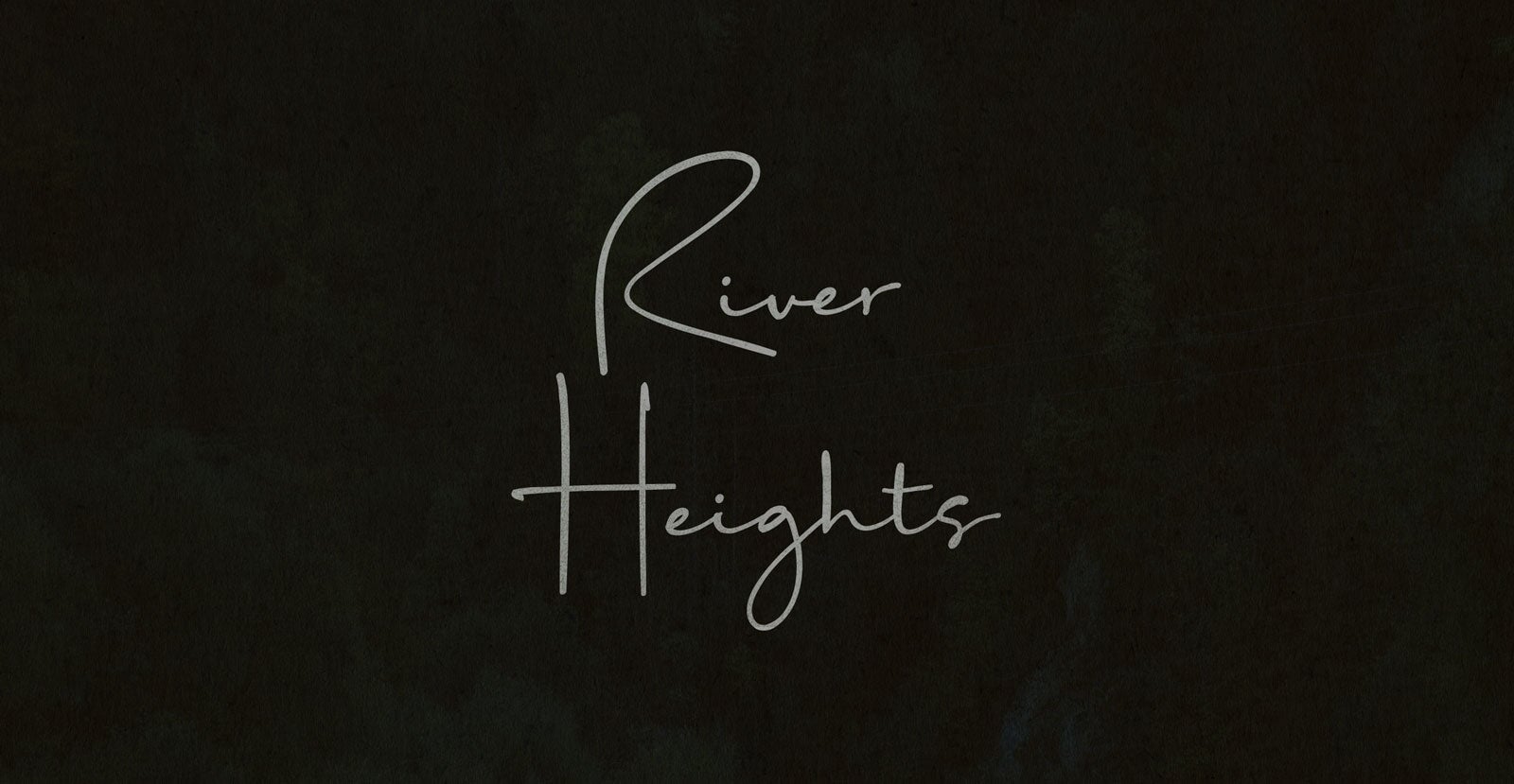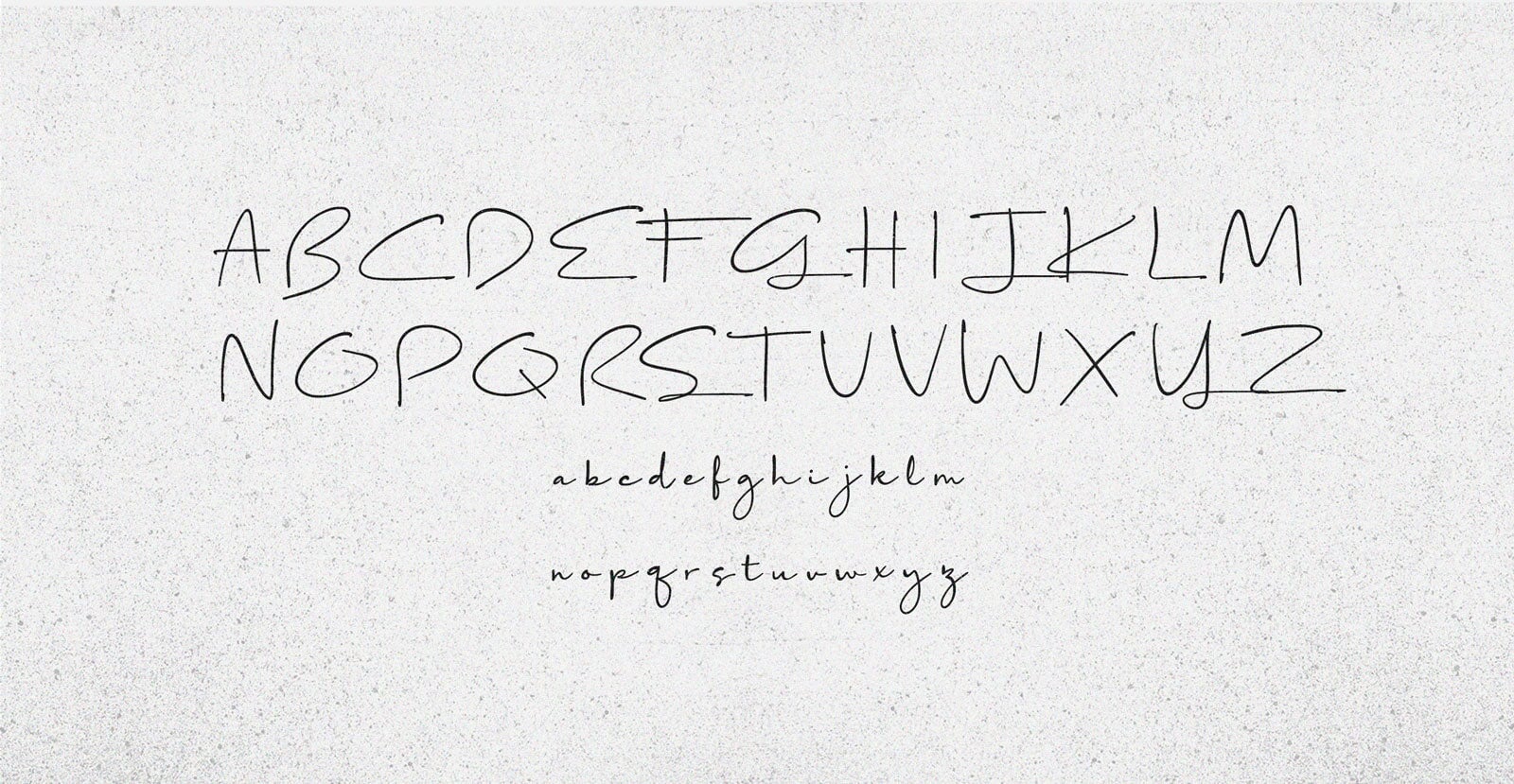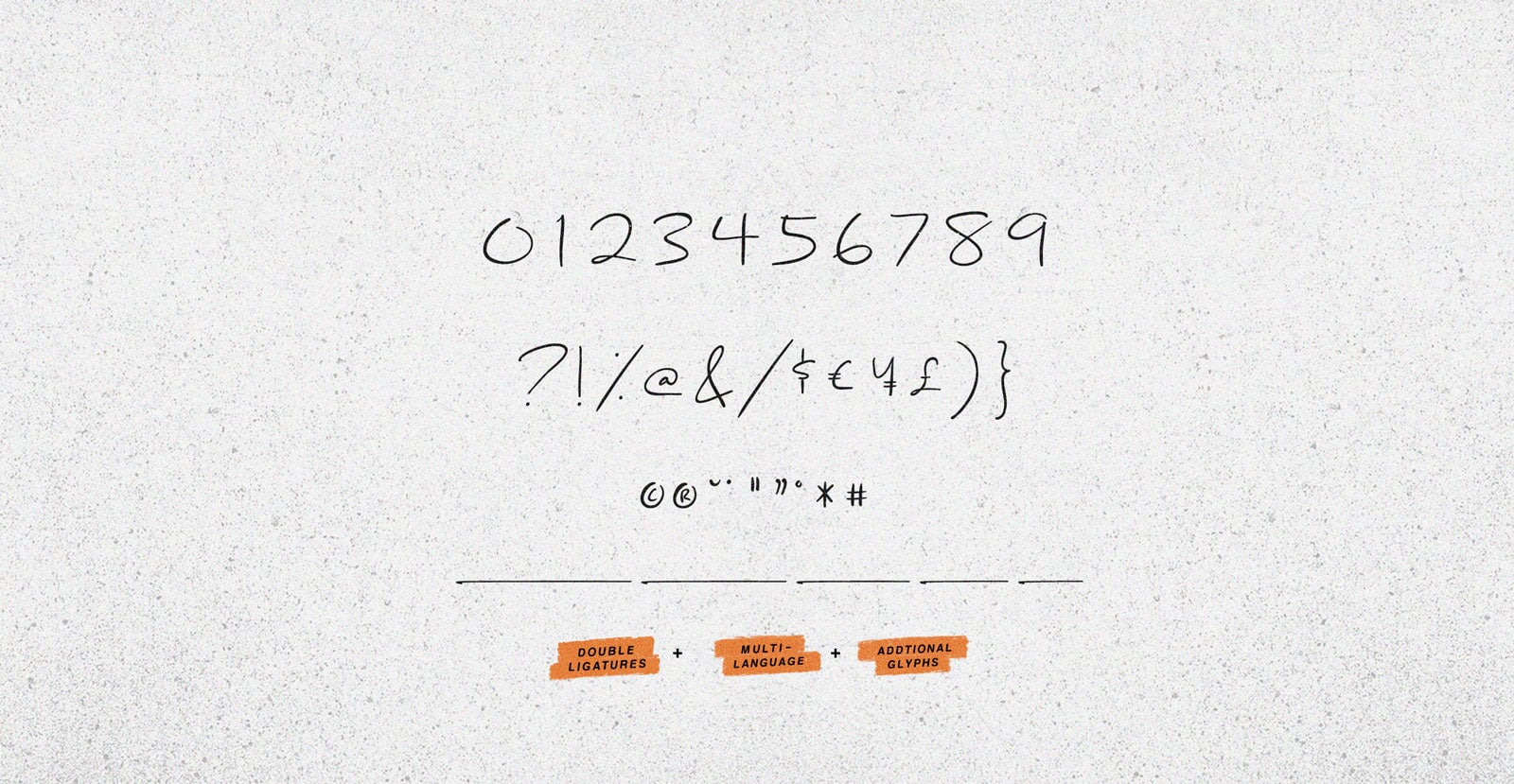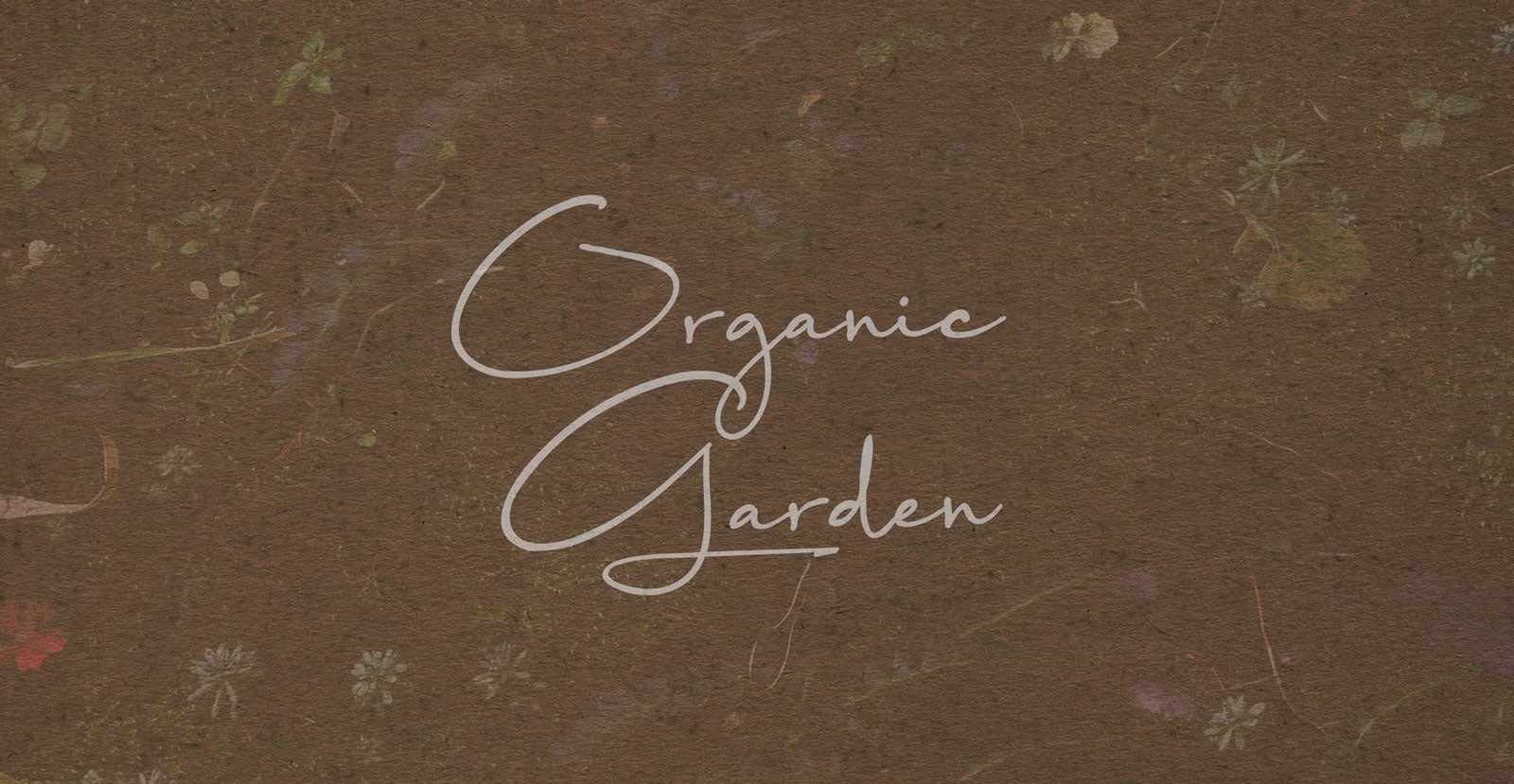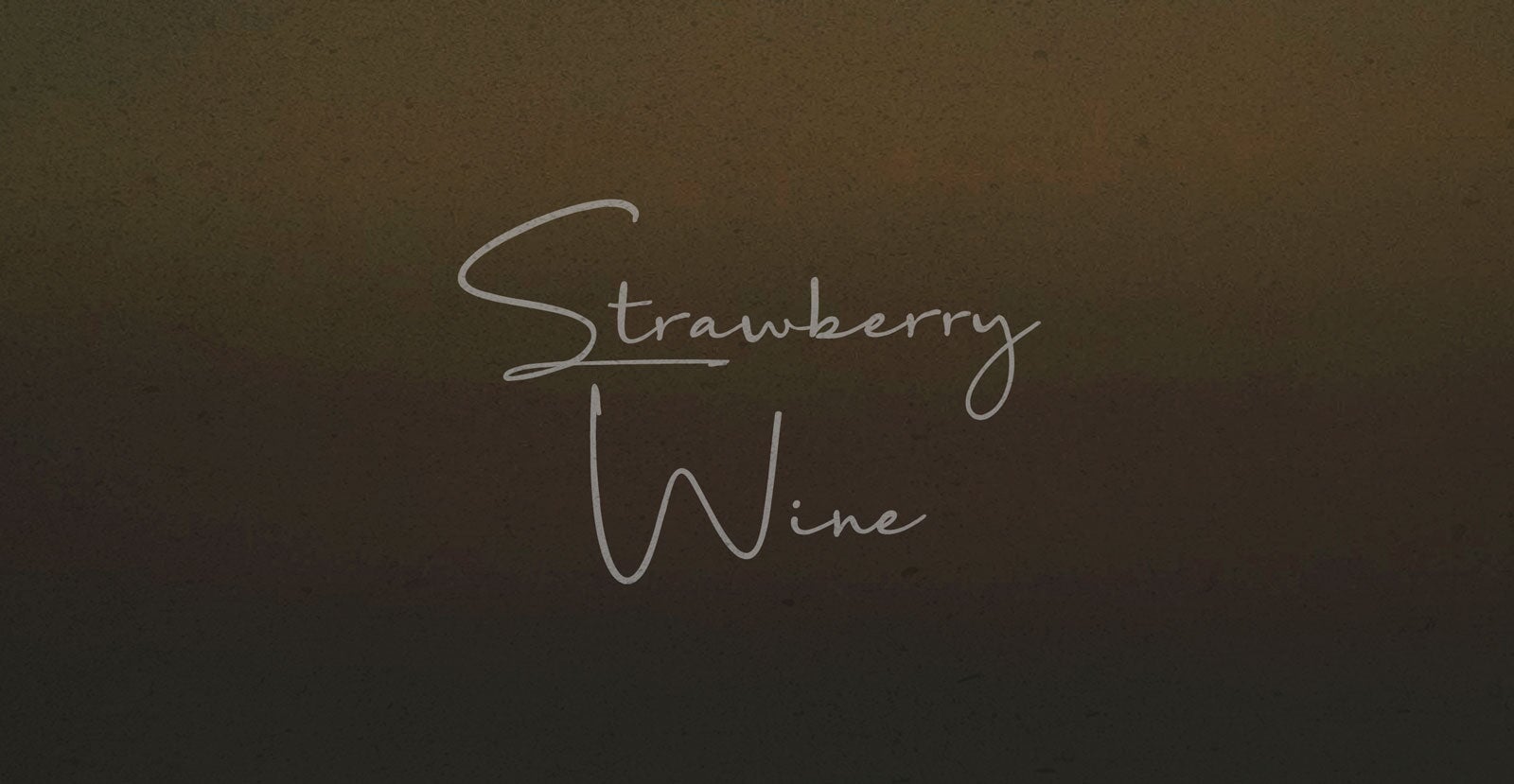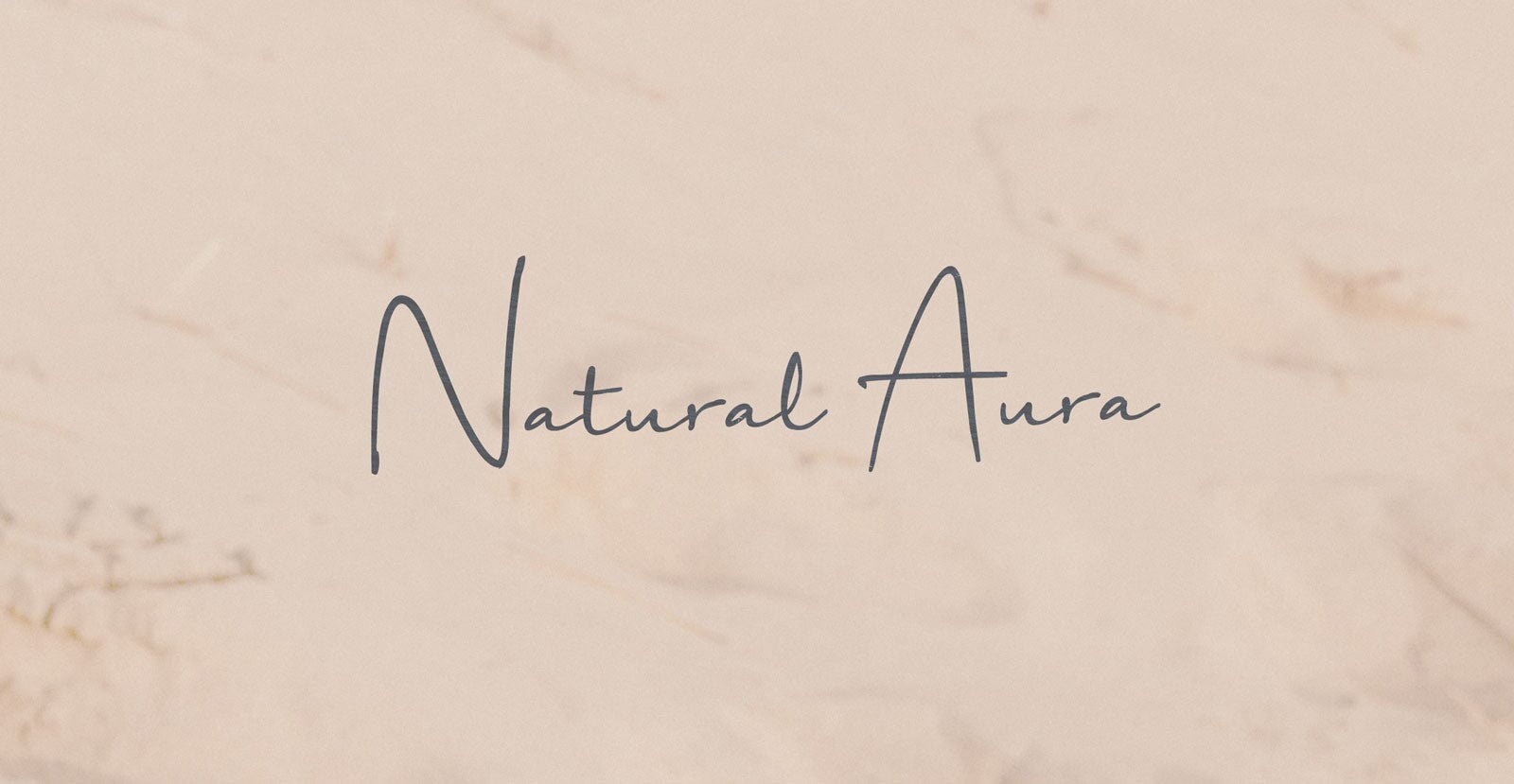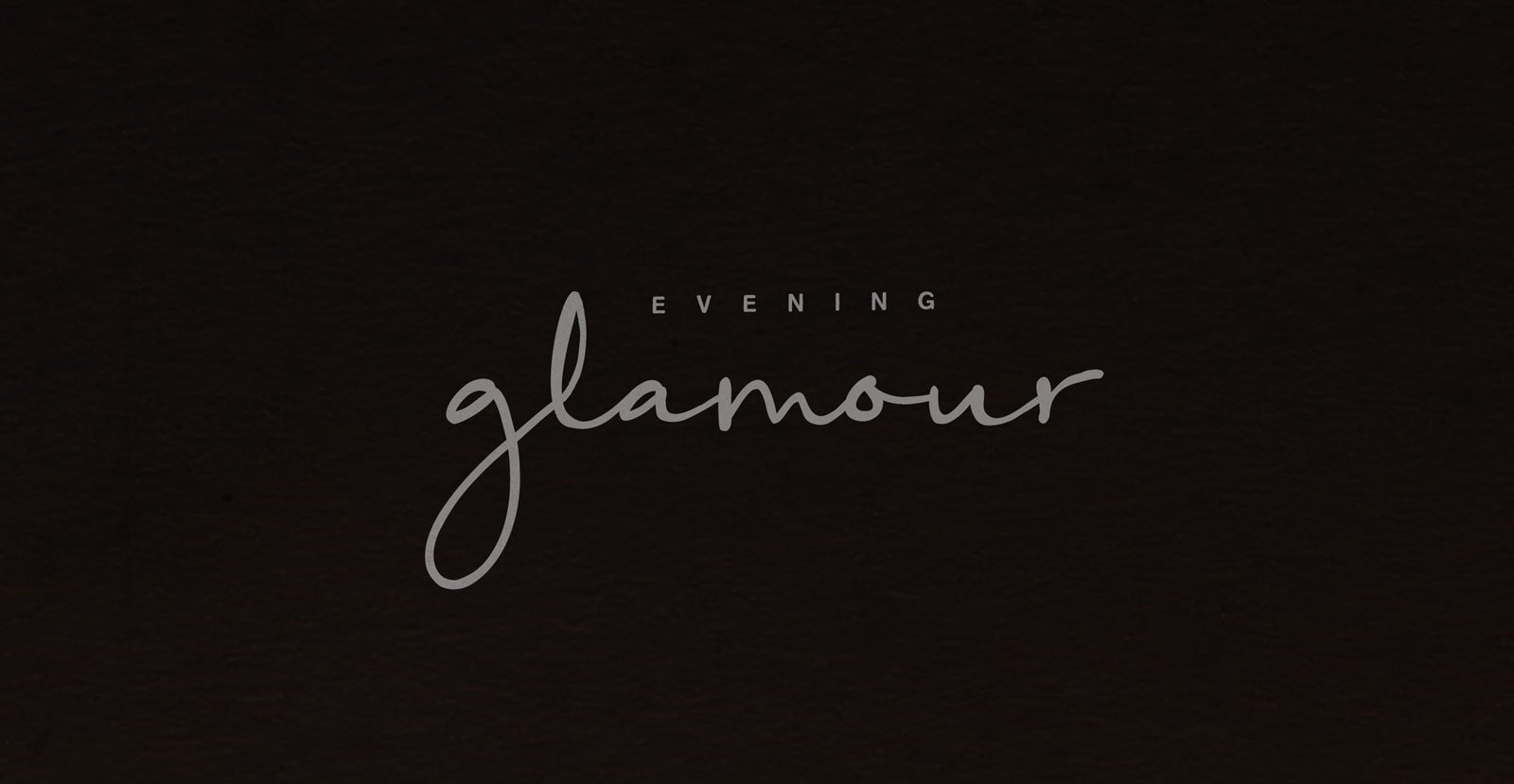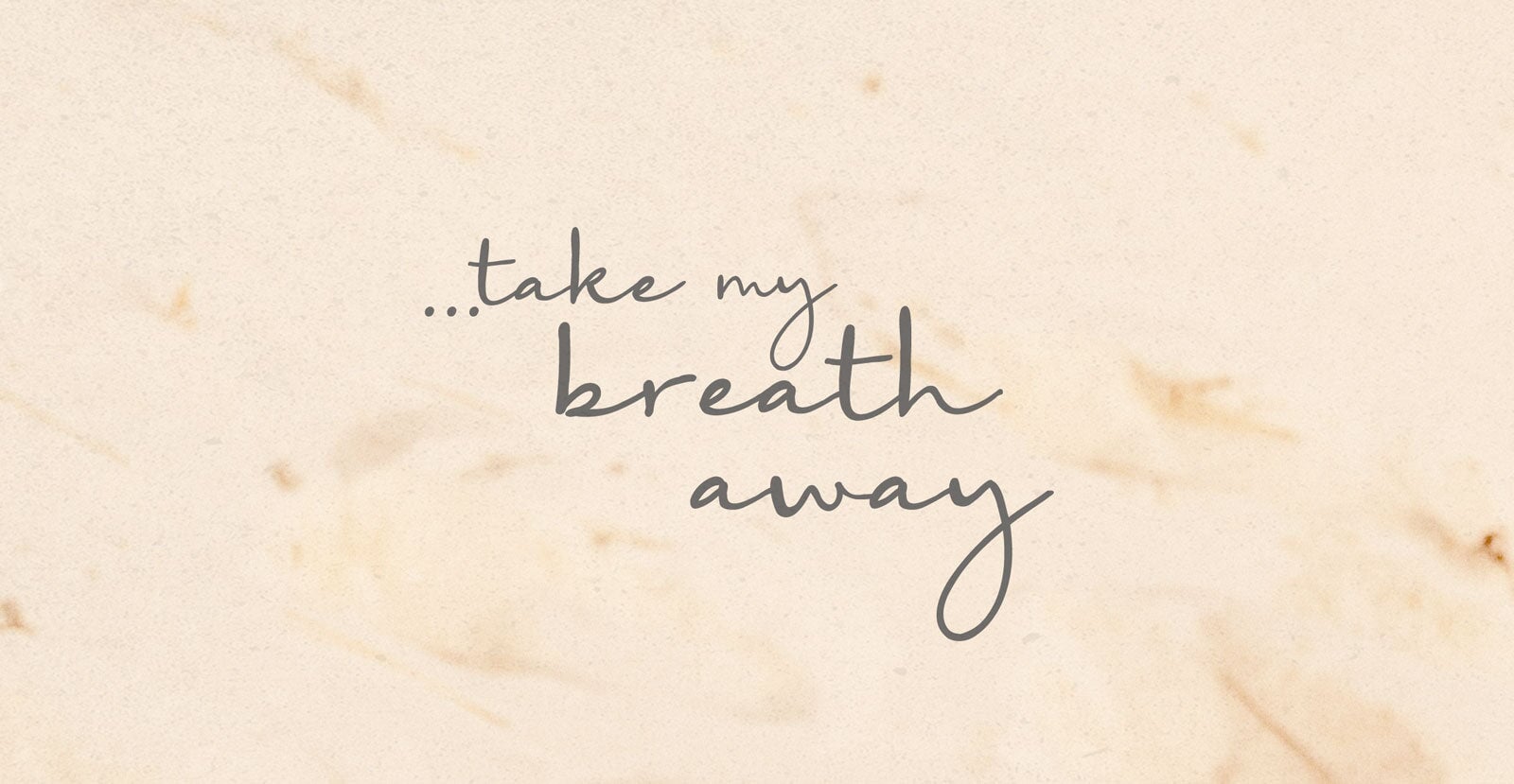
River Heights
Handwritten Pen Script Font
River Heights flows with quiet structure—steady, graceful, and grounded in calm. It carries the feeling of space and elevation, where form follows feeling and every curve leads somewhere deliberate. Not loud, but always present.